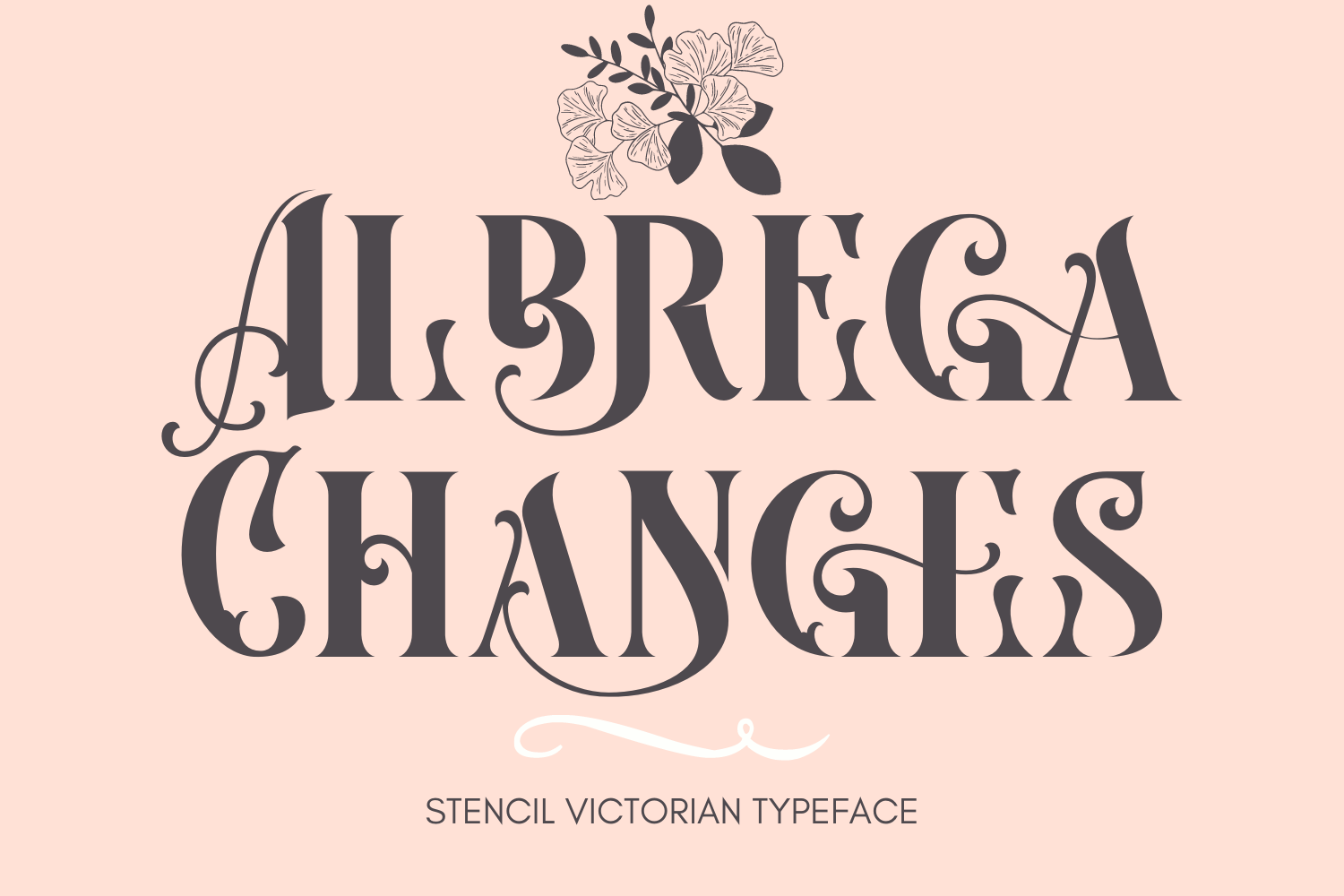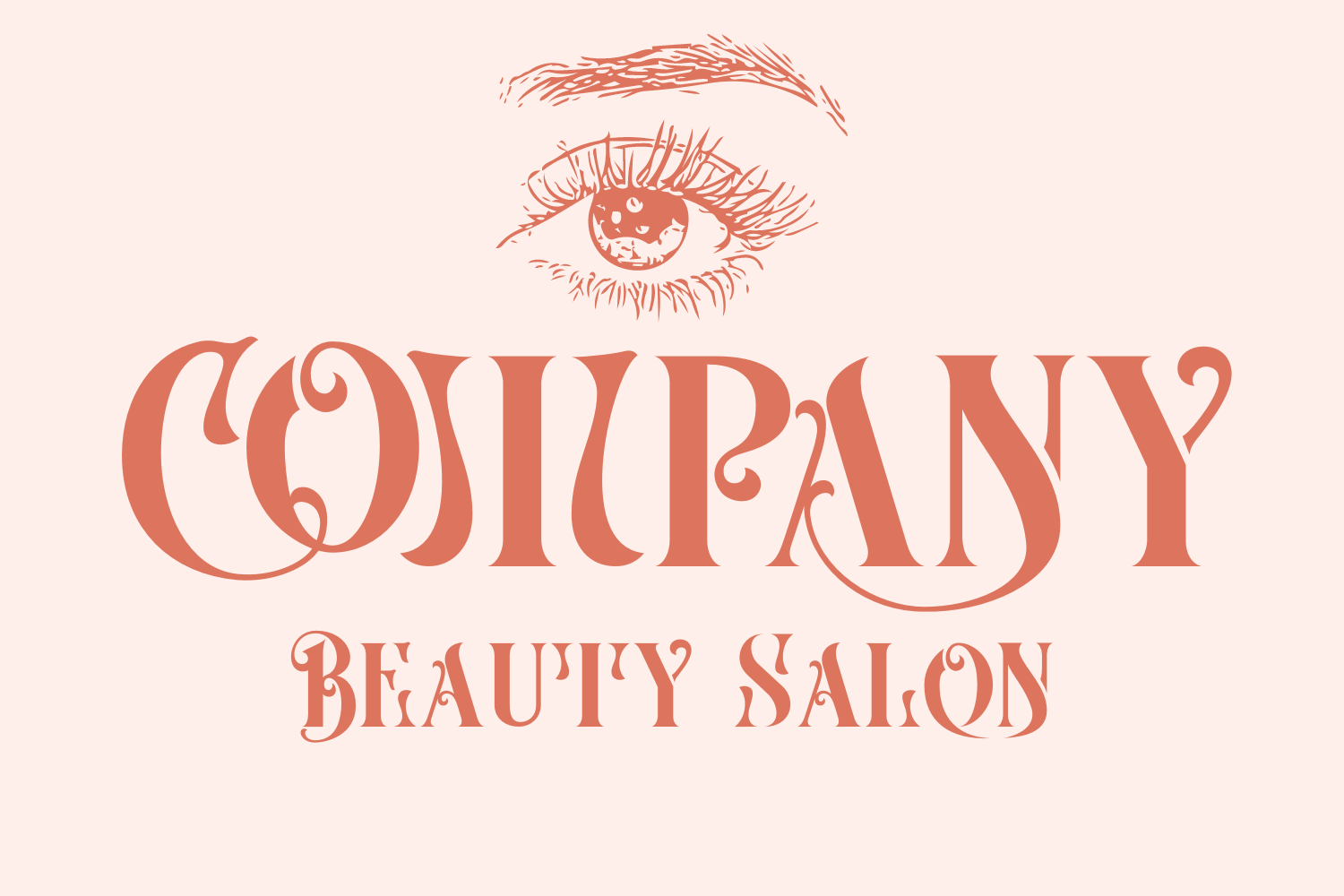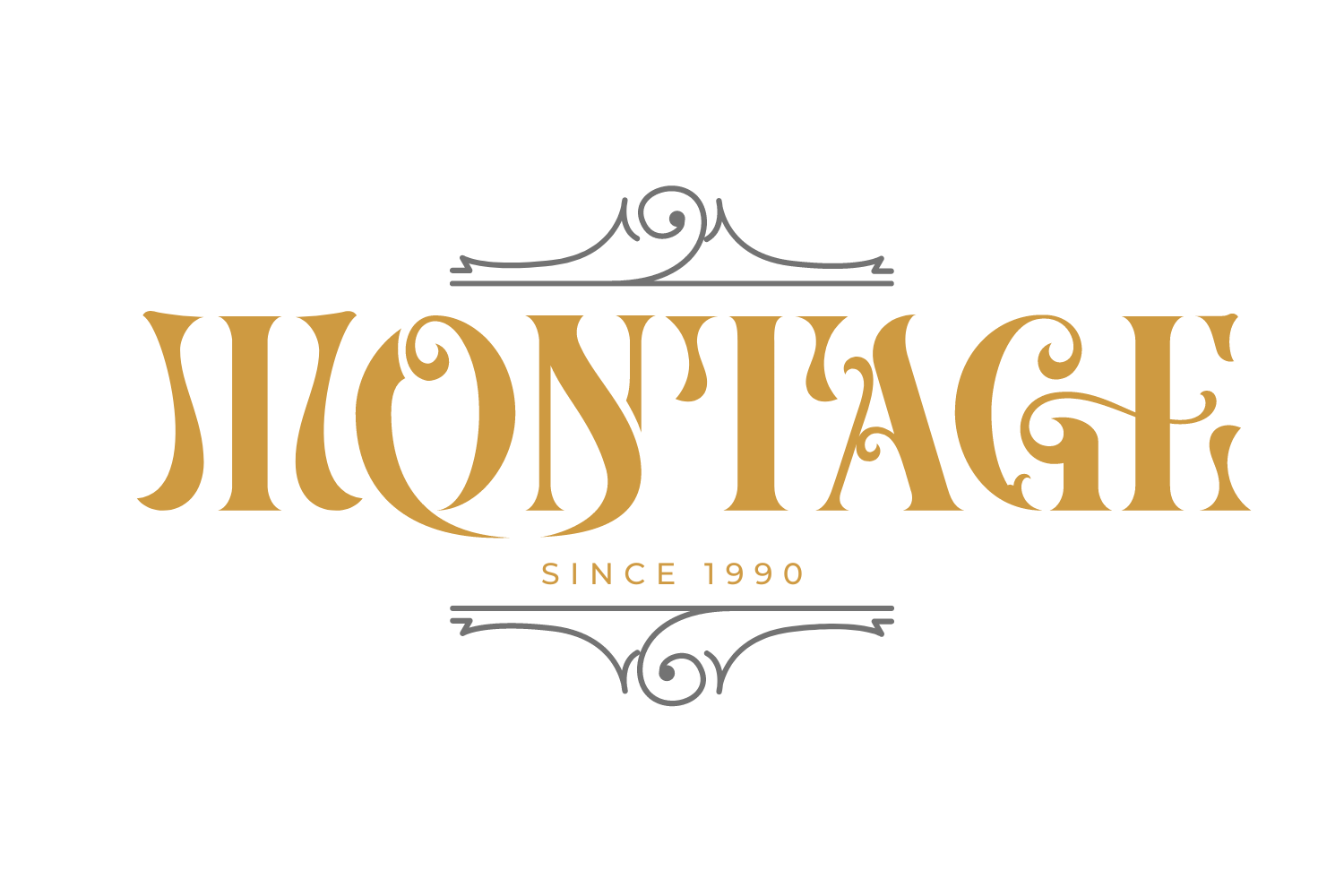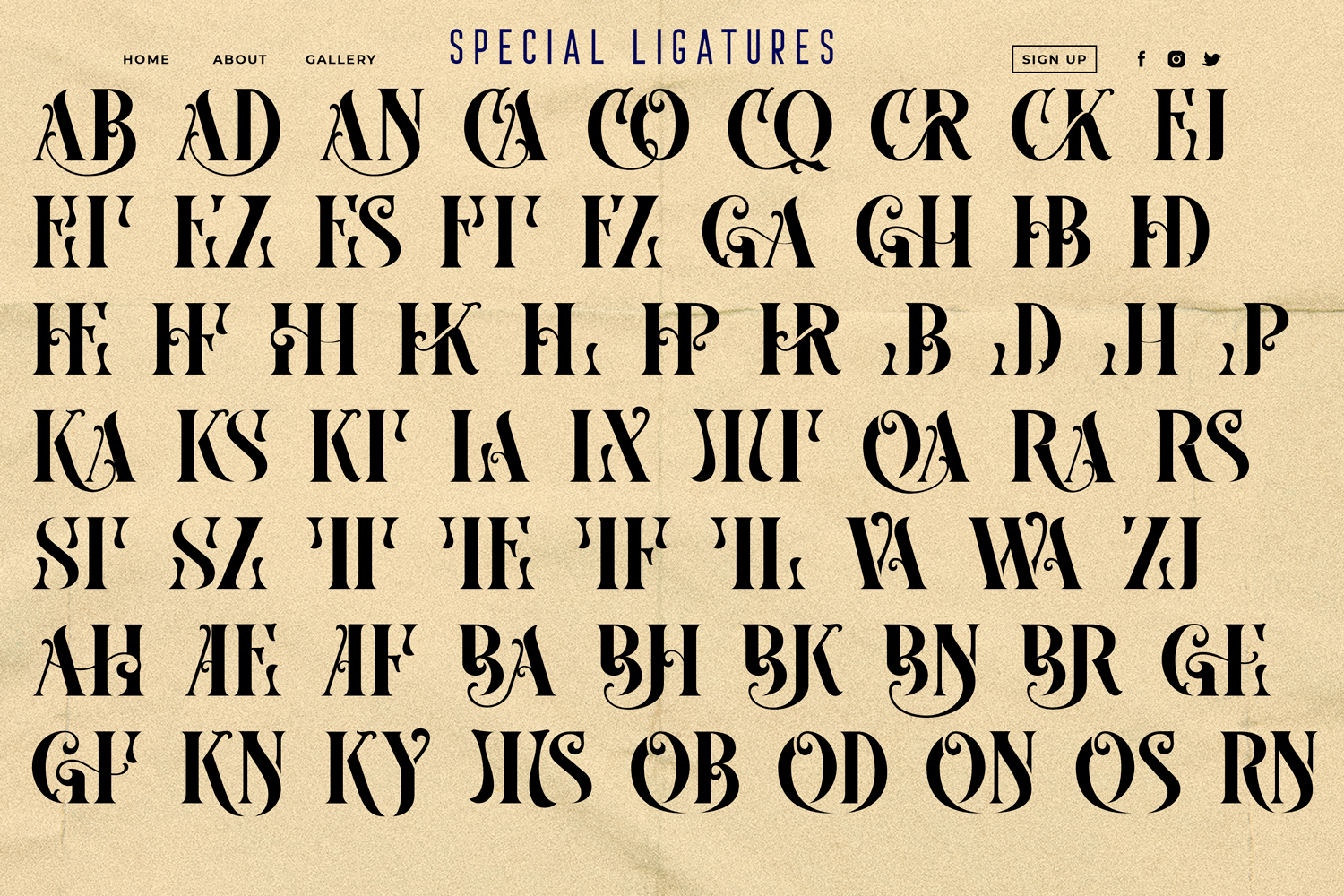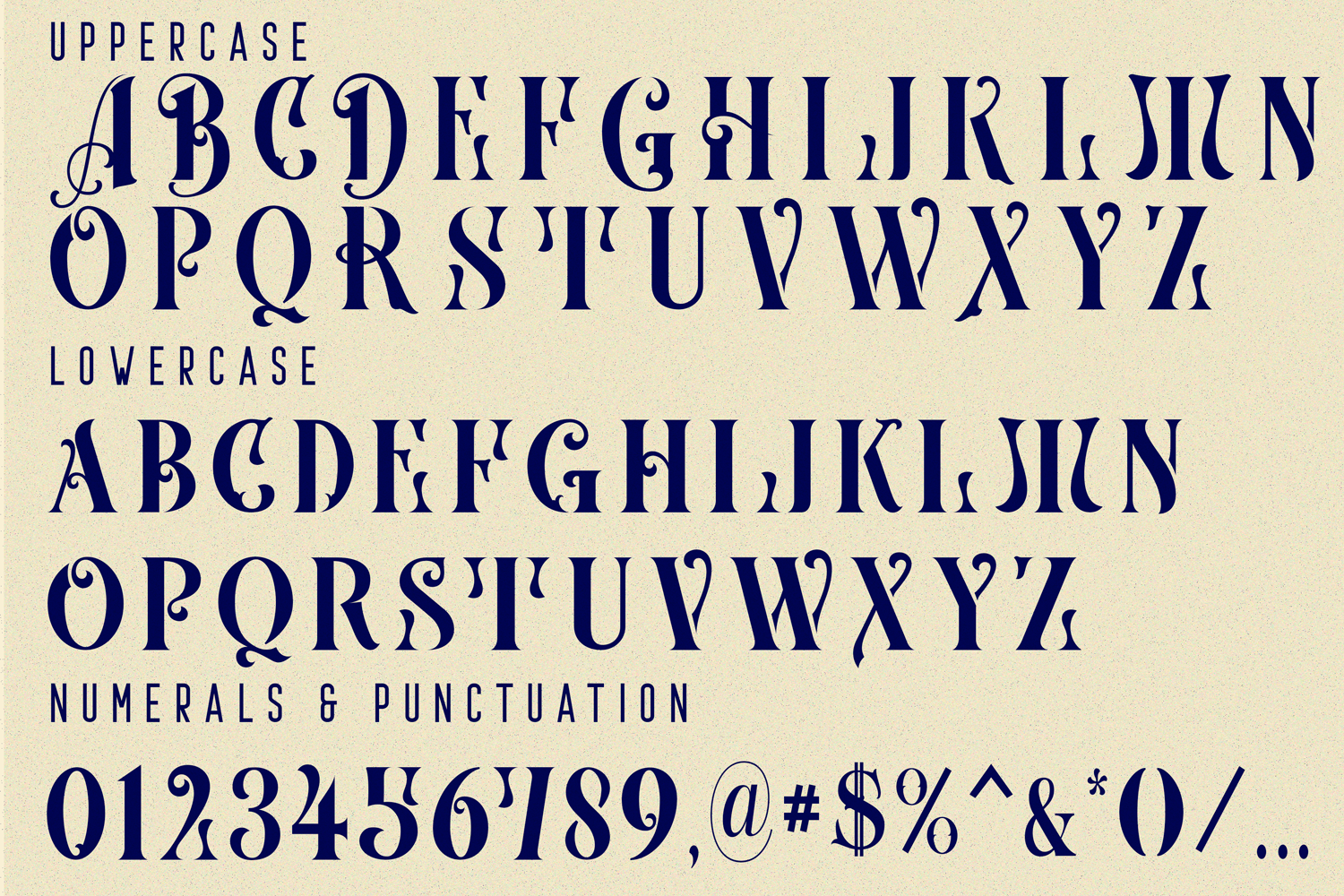
Albrega Changes Font
Albrega Changes Font is a stylish serif typeface with ligature & alternates that looks incredible in both large and small settings as a display with italic version. This typeface can also be categorized in a more modern Victorian style by carrying a slight stencil modification. This font is also an all-caps font with different letters and character heights in the uppercase and lowercase. Suitable for any branding purpose.
To make it look more unique, here we prepared some ligatures:
ab an ad ca co cq cr ck ej et ez es ft fz ga gh hb hd he hf hh hk hl hp hr jb jd jh jp ka ks kt la lx mt qa ra rs st sz tt te tf tl va wa zj ah ae af ba bh bk bn br ge gf kn ky ms ob od on os rn…